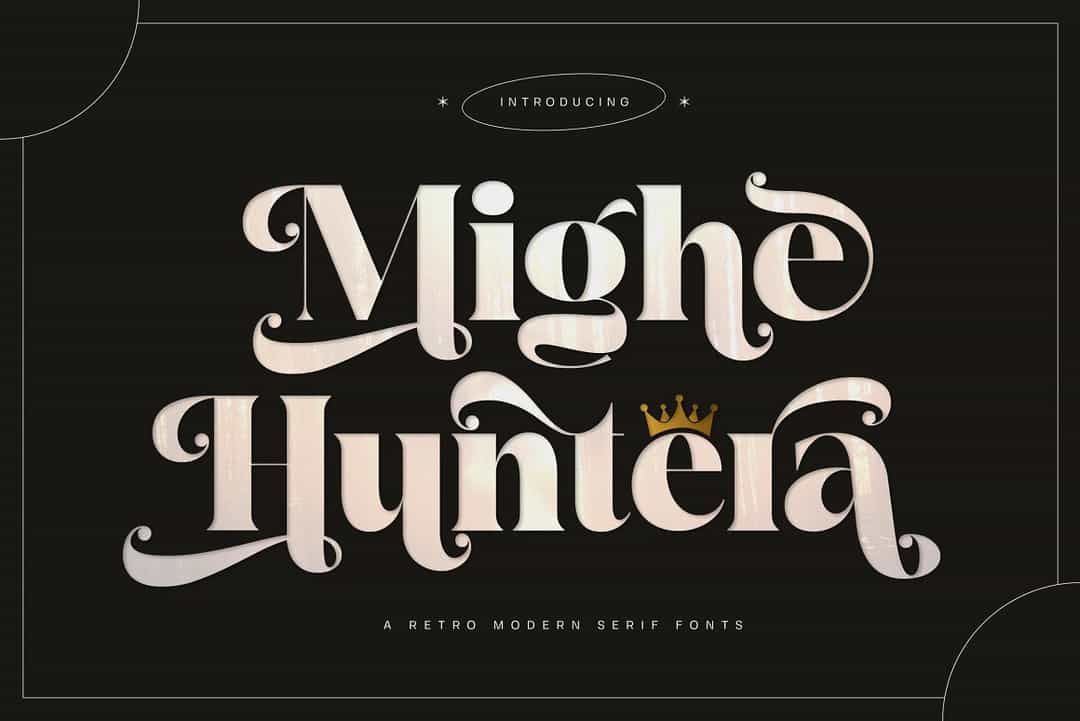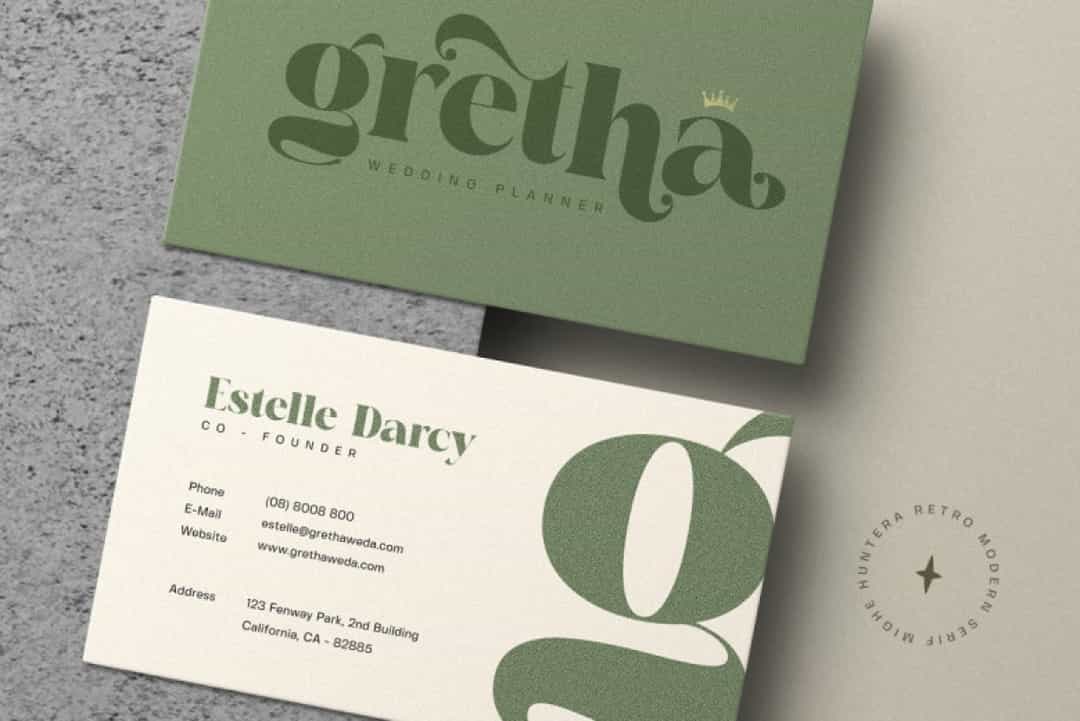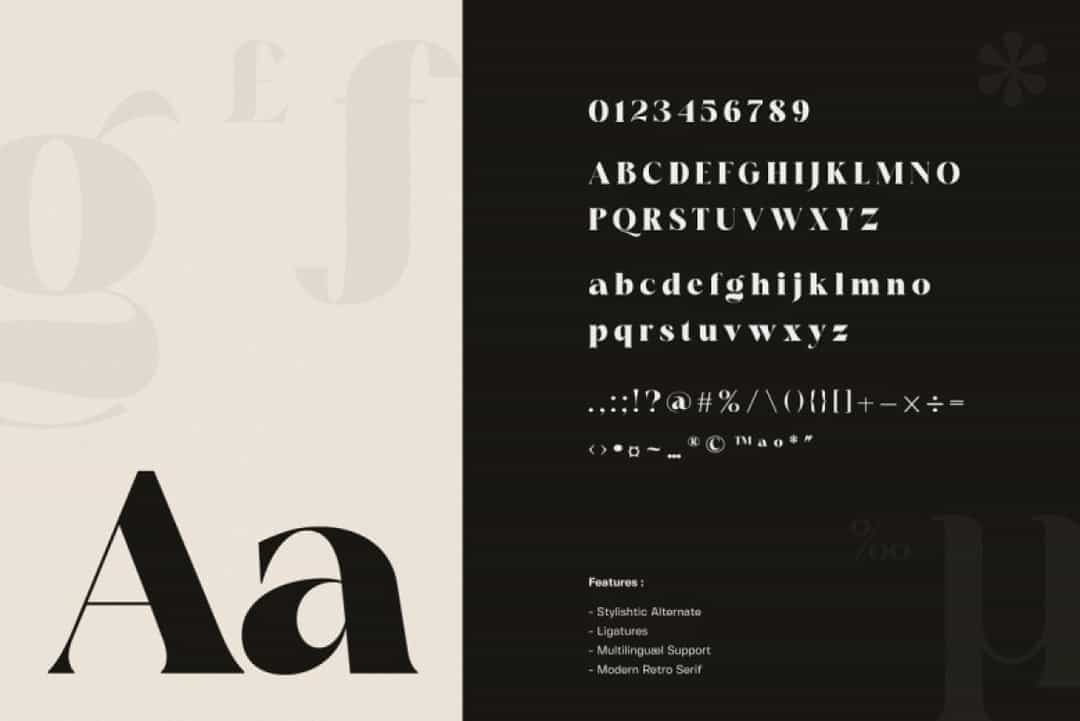
Mighe Huntera is an old-fashioned modern serif typeface inspired by typography of the 1990s and exudes nostalgic beauty while exuding timeless elegance. Each character boasts sharp serifs that seamlessly combine with bold strokes for a balanced combination of elegance and boldness that’s pleasingly aesthetic.